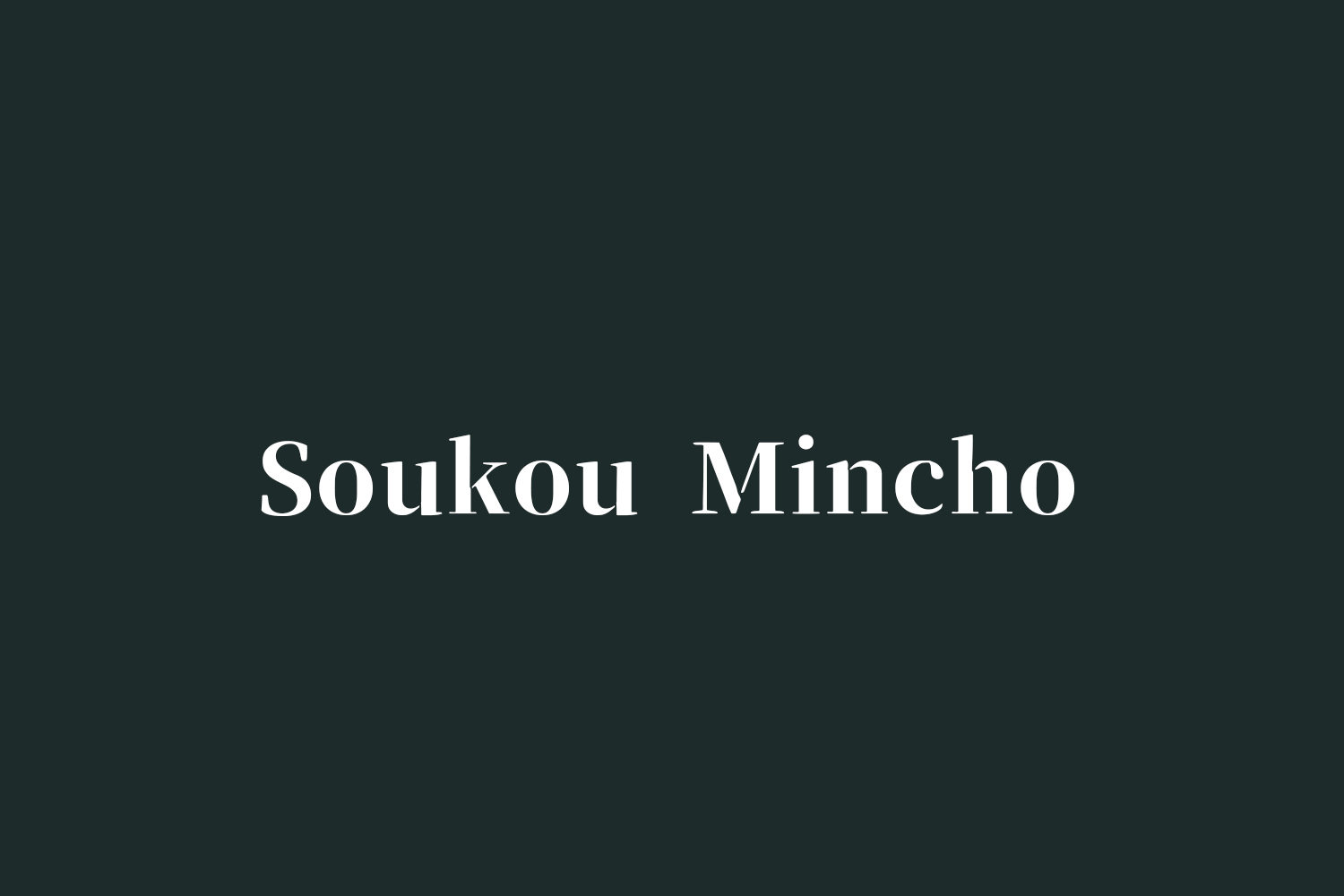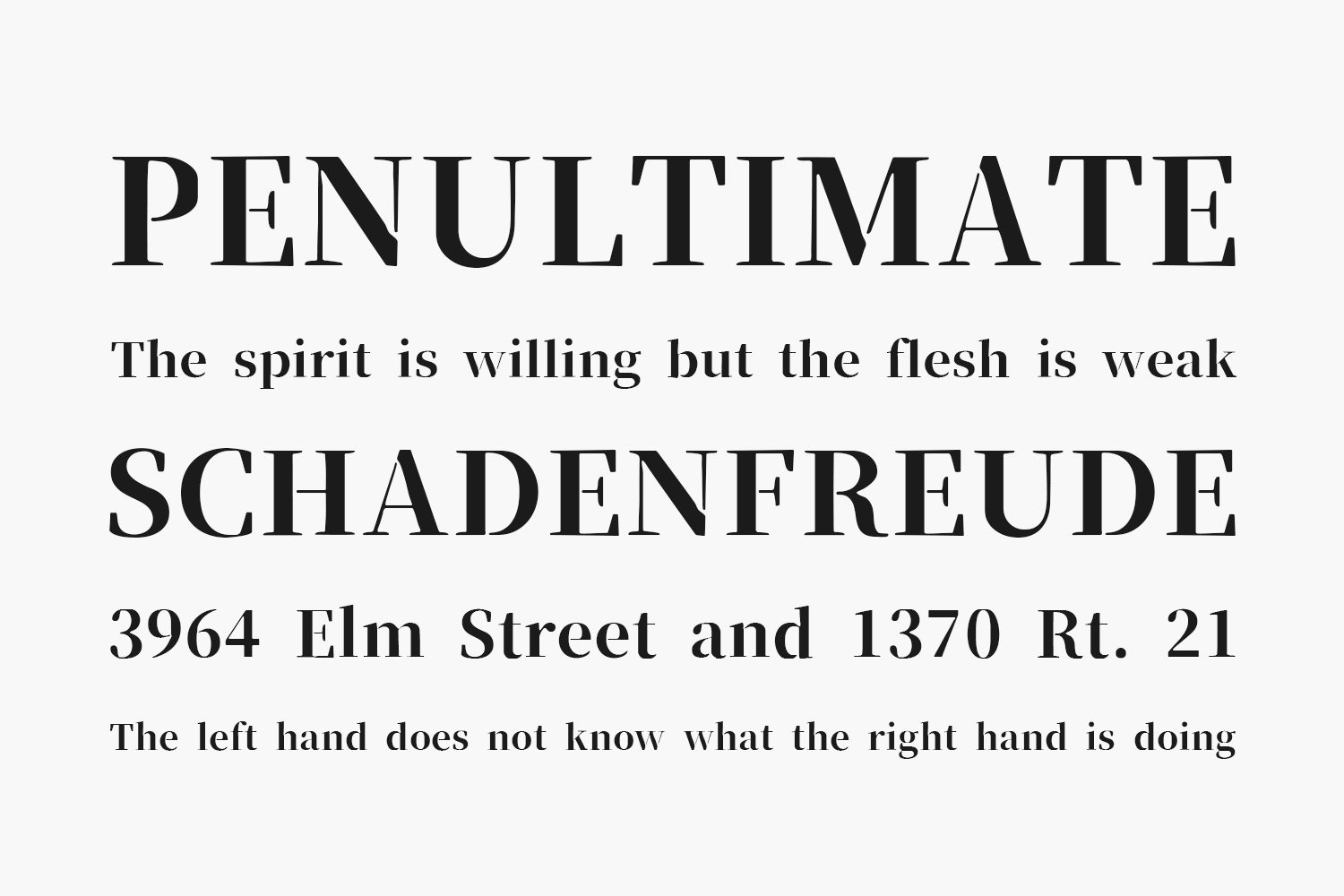
Soukou Mincho Free Font is a free Mincho style Japanese font that you can download. It features strong contrast between vertical stems and horizontal arm strokes, resulting in this readable font with high impact on visual appearance. This font is designed based on the open source font Source Han Serif and was released under Flop Design.